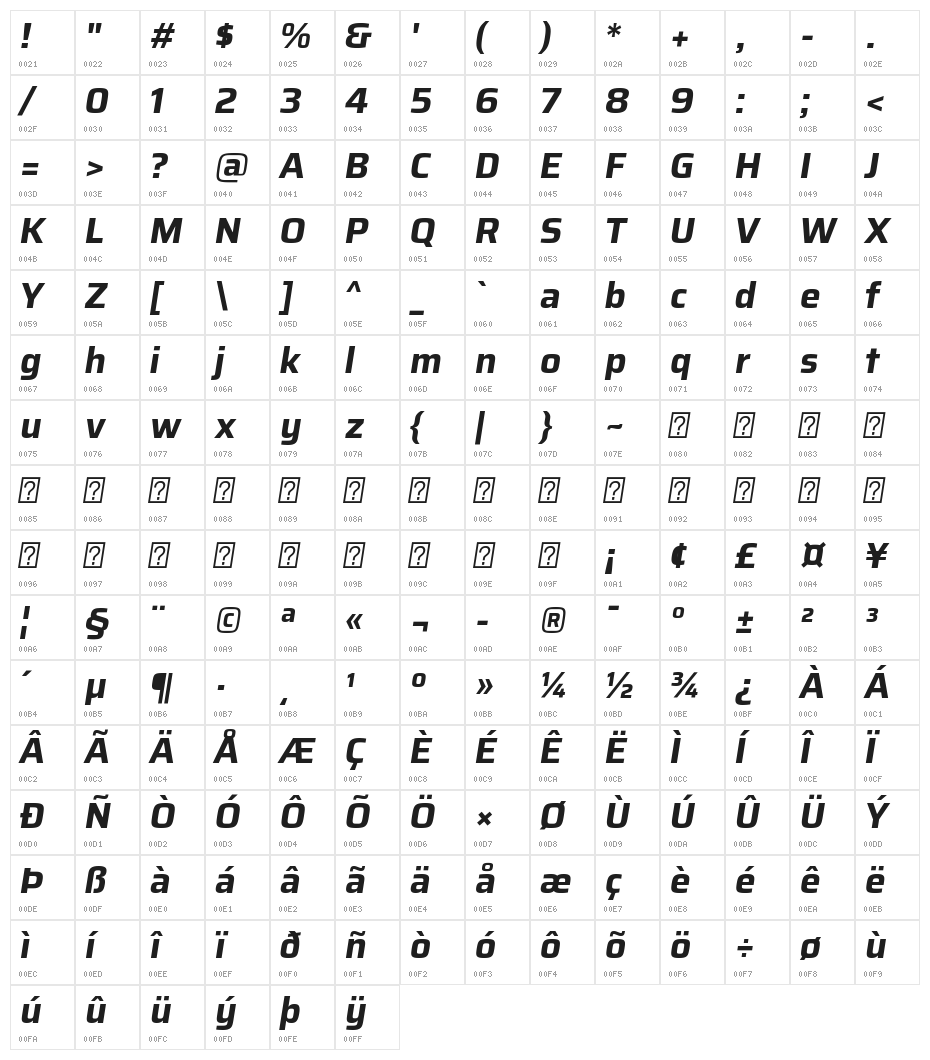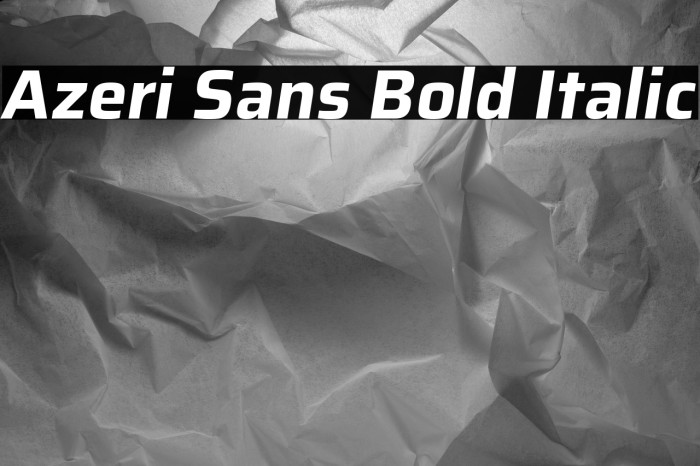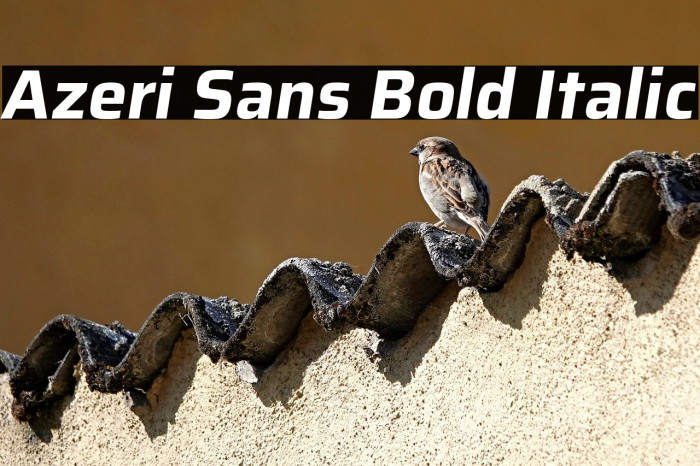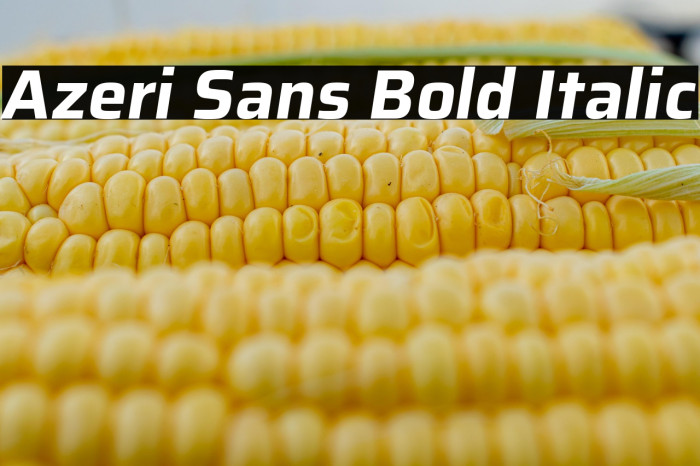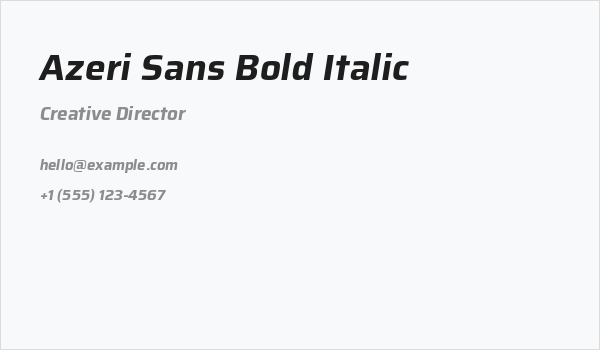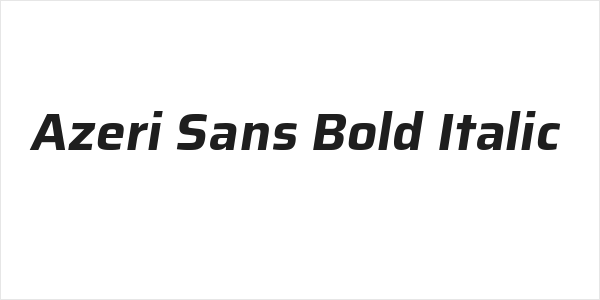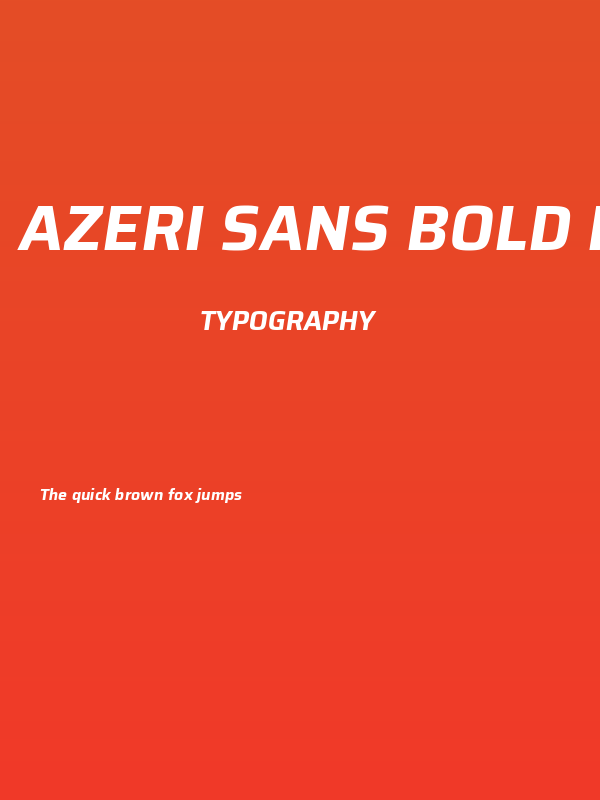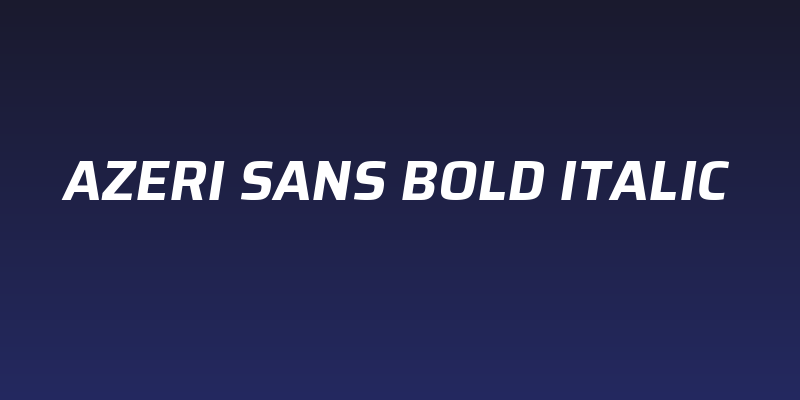
Azeri Sans Bold Italic Font
Azeri Sans Bold Italic Description
This font features a bold and italicized sans-serif style, characterized by clean lines and a modern aesthetic. The letters are slightly slanted, giving a dynamic and forward-moving appearance. The uppercase and lowercase letters maintain a consistent weight, providing a uniform look across the text. The numerals are clear and easily distinguishable, while the special characters are well-defined, ensuring readability. The overall design is sleek and contemporary, making it suitable for various digital and print applications.
| Use Case | Headlines, Logos, Digital Media |
| Proposed Projects | Ideal for branding, advertising, and digital media projects where a modern and bold statement is needed. |